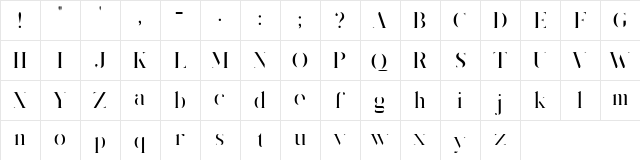
King's Gambit Regular
Design Context for King's Gambit Typeface
King's Gambit offers clean, dependable letterforms without strong stylistic allegiance, making it a practical choice for designers who need flexibility.